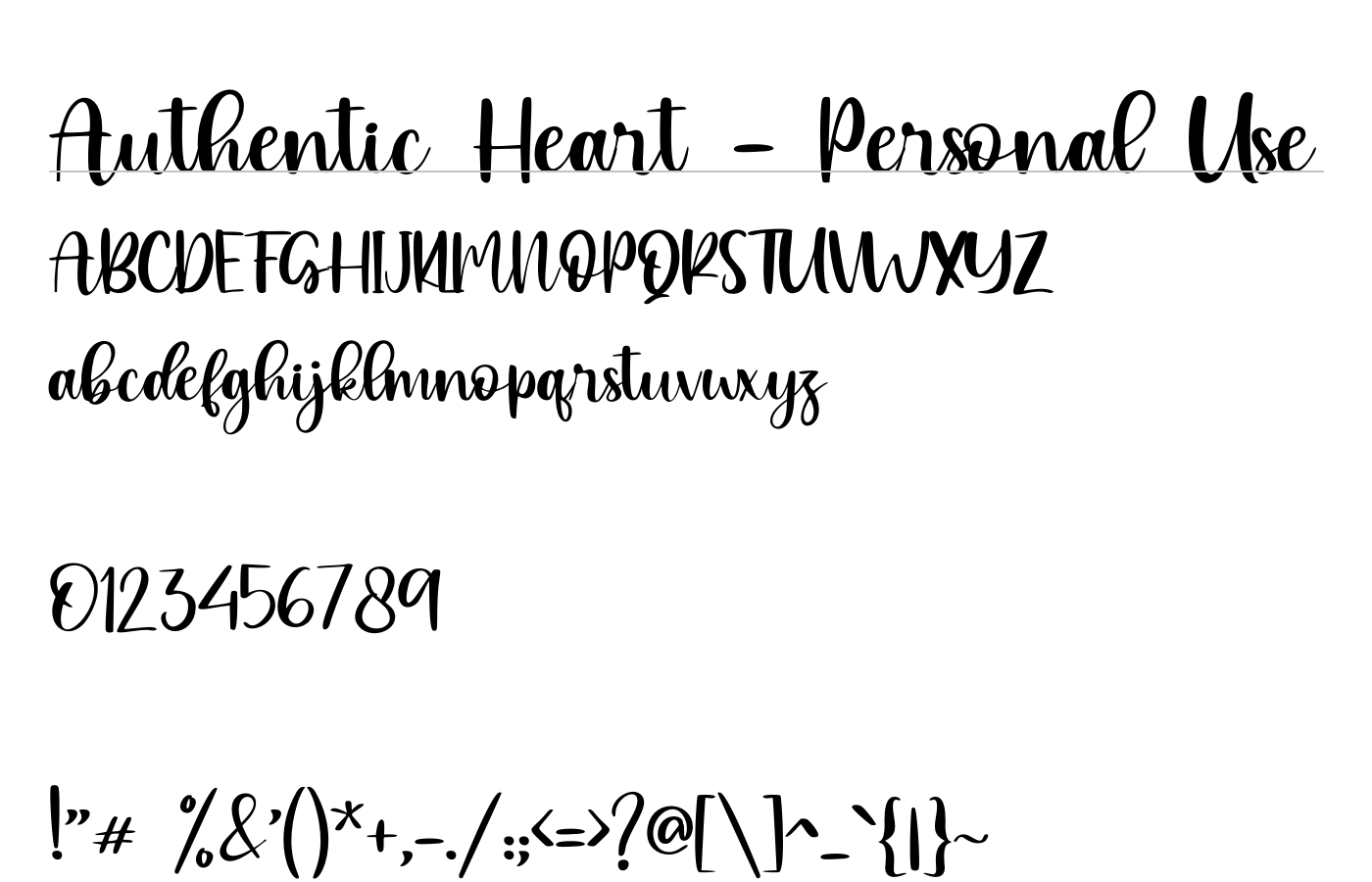
Authentic Heart is a charming handwritten script font with a casual yet elegant feel, featuring smooth, flowing strokes and a medium weight that balances clarity with personality. Its slightly condensed letterforms and playful curves make it ideal for personal, creative projects such as invitations, branding, or social media graphics, where a warm and approachable tone is desired. This font’s friendly style and legible characters work beautifully in headlines and decorative text, adding a touch of heartfelt authenticity to any design.
Authentic Heart - Personal Use Font
About Authentic Heart - Personal Use Font
| Designer | Sarwo Edhi Prayitno |
| Trademark | Haksen Studio |